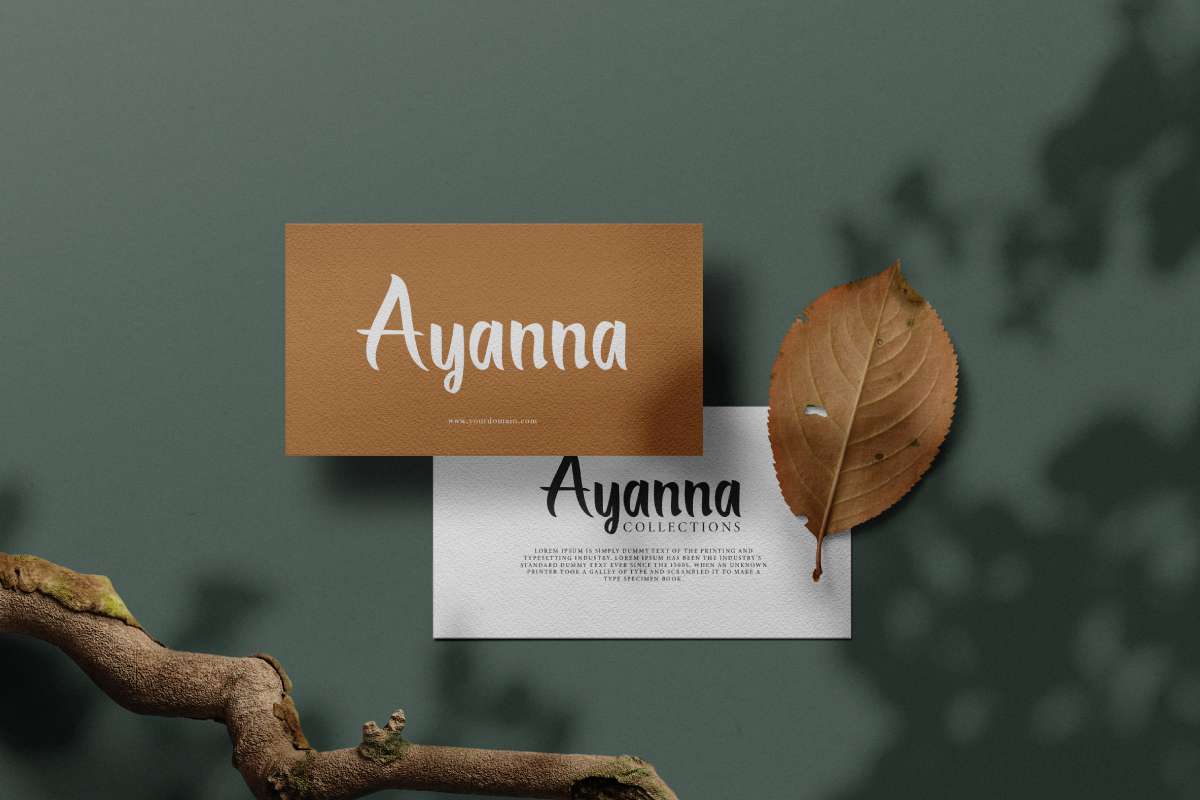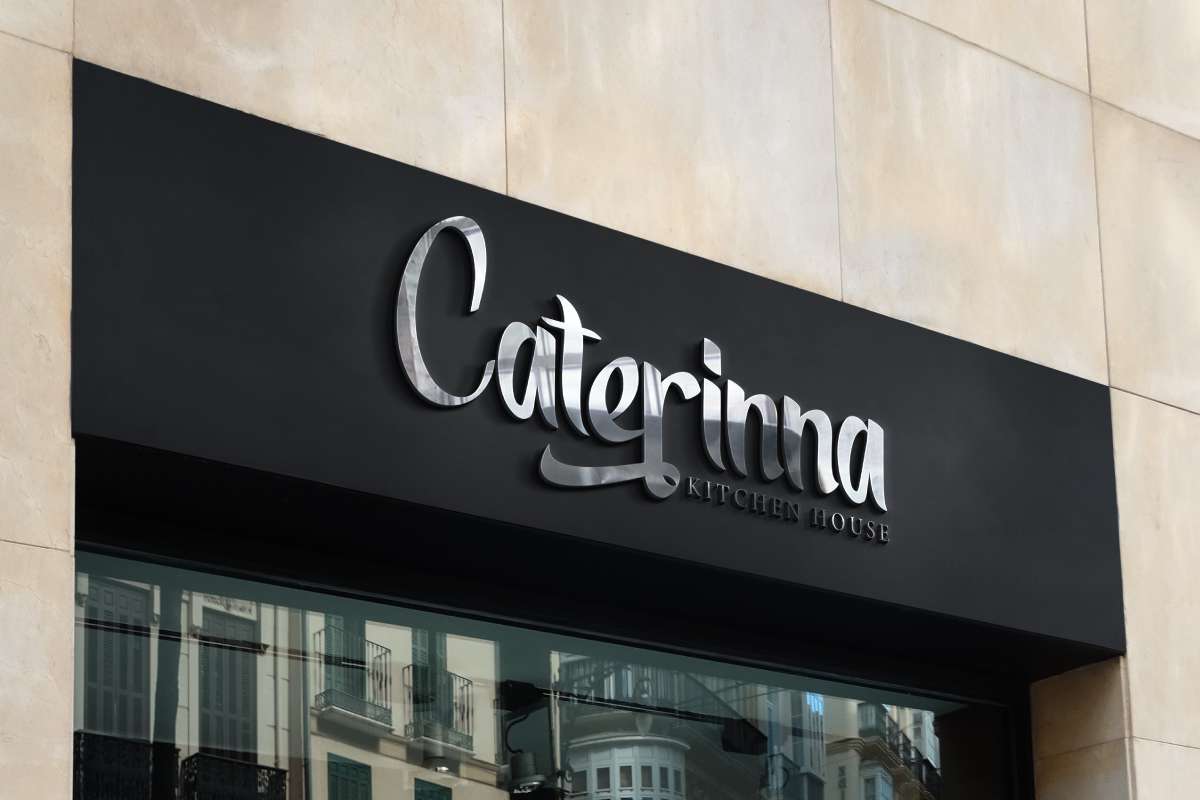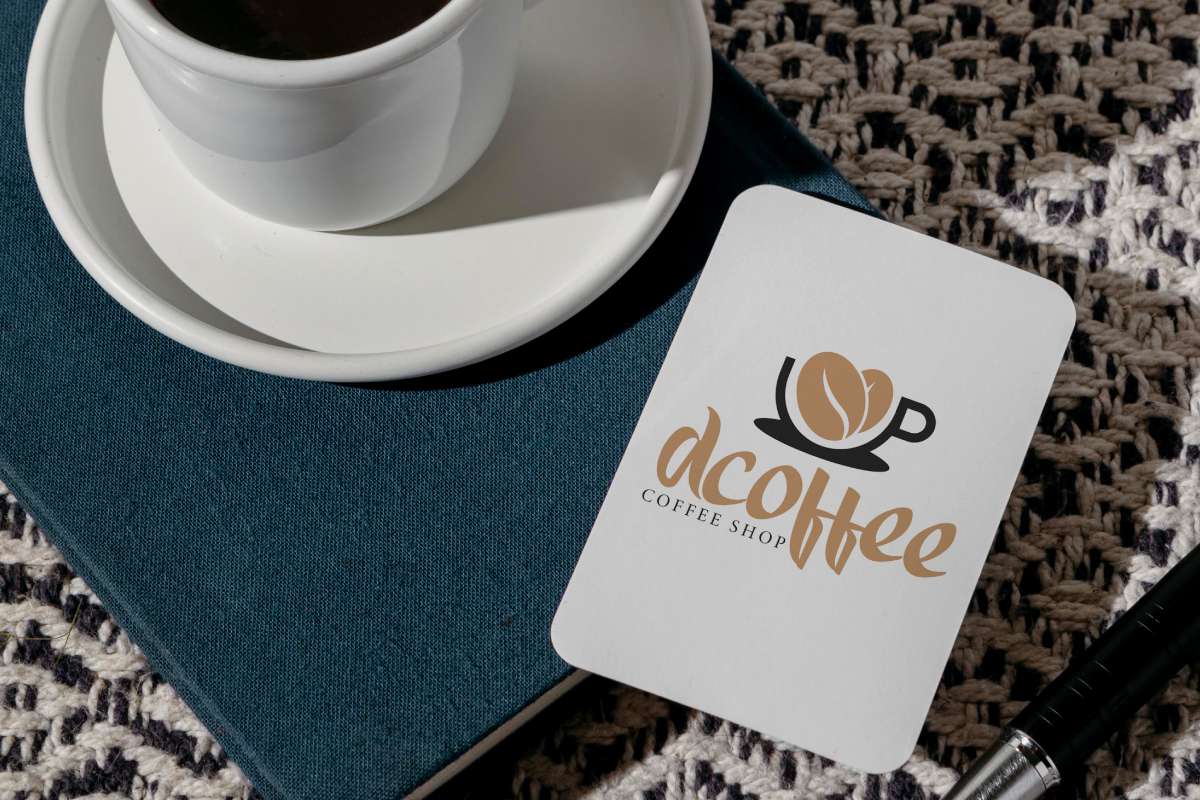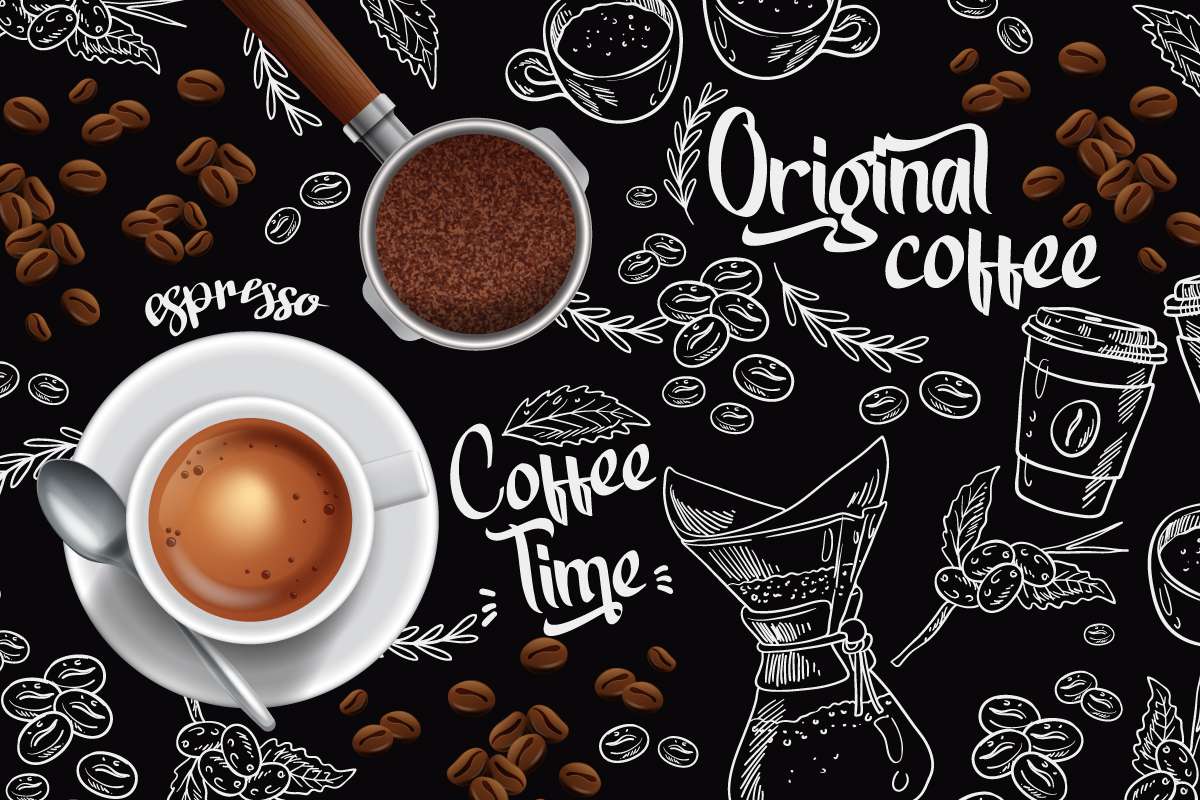
Expect Nothing Font
Expect Nothing Script Font
It’s a calligraphy font that uses an elegant thick brush with a beautiful look. This font is crafted carefully in every its single letter so we can make sure it has great looking, inspired by the handwriting of Italian women and ancient manuscripts. Carefully designed to work together in harmony and This one should make your designs instantly professional and jaw-dropping!
Expect Nothing Font includes full set of Uppercase and Lowercase Basic Characters, Numerals and Punctuation. Also has alternates, ligatures and swashes that enhance the look of this calligraphy to give it a flowing character and make for a fabulously perfect look that adds more aesthetic fonts to perfect your extraordinary projects. Many industries will suit this font great including bakery, clothing, florist, jewelry, photography, wedding, writers etc